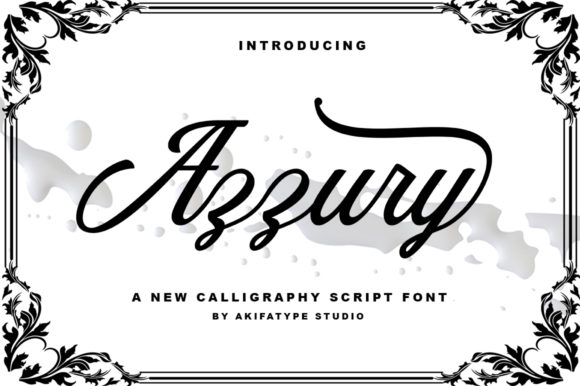
The Azzury Font: A Timeless Script for Creative Projects
I still remember the frustration of working on a vintage-themed craft project, searching for the perfect font to capture the essence of a bygone era. The client wanted a sophisticated, elegant look, but I was struggling to find a script that was both beautiful and legible. That’s when I stumbled upon the Azzury font, and it instantly became my go-to choice. In this article, I’ll share my experience with Azzury, its features, and how to make the most of it in your creative projects.
A Personal Review of Azzury
Azzury is a stunning script font that’s won my heart with its elegance and readability. Here’s what I love about it:
- ✨ Exceptional legibility: Azzury’s clear and flowing script makes it perfect for a wide range of projects, from crafts to digital designs.
- ✅ Vintage charm: Azzury’s unique character set and classic style evoke a sense of nostalgia and sophistication.
- 💫 Versatility: Whether you’re working on a logo, a poster, or a social media graphic, Azzury adapts seamlessly to different contexts.
Of course, no font is perfect, and Azzury has a few minor quirks:
- 🤔 Limited character set: While Azzury has a wide range of characters, it might not have every special character or glyph you need.
- ⚠️ Not ideal for body text: Due to its script nature, Azzury is best suited for headings, titles, or short paragraphs, rather than lengthy texts.
The Story Behind Azzury
Azzury’s story began with a passion for vintage typography. Its designer, inspired by classic scripts from the early 20th century, aimed to create a font that would evoke a sense of nostalgia and timelessness. With Azzury, they successfully blended traditional elegance with modern legibility, making it a versatile choice for creative projects.
| Font Name | Azzury Font |
| Author | akifatype |
| What makes Azzury a great choice for vintage-themed projects? | Azzury’s classic script style and elegant character set make it an excellent fit for vintage-themed projects, evoking a sense of nostalgia and sophistication. |
| Is Azzury a difficult font to read? | No, Azzury is designed to be highly legible, making it perfect for a wide range of projects, from headings to short paragraphs. |